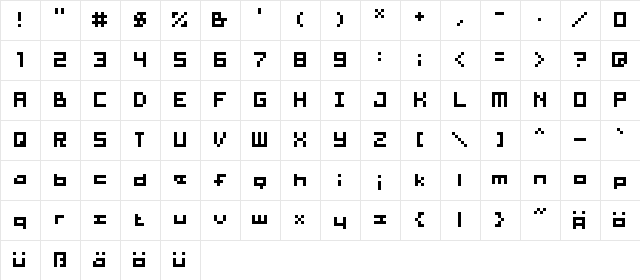
supermarket square
Design Context for supermarket Typeface
supermarket offers clean, dependable letterforms without strong stylistic allegiance, making it a practical choice for designers who need flexibility.